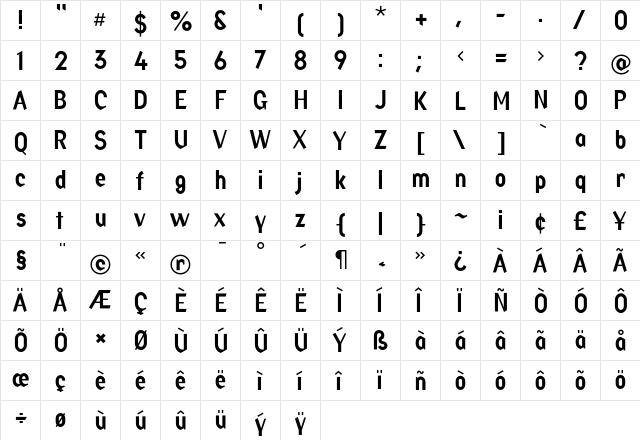
Factory LiningNumbers Font Preview
Factory LiningNumbers
Factory LiningNumbers Font Details
| Style | LiningNumbers |
Design Context for Factory Typeface
Factory takes a measured approach to typography — its balanced proportions and neutral character make it a reliable workhorse for both digital and print work.